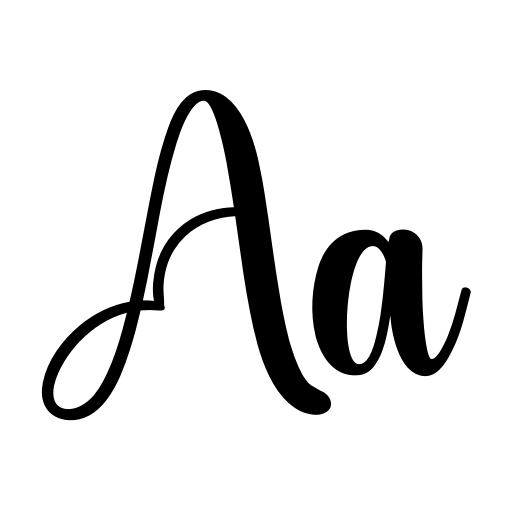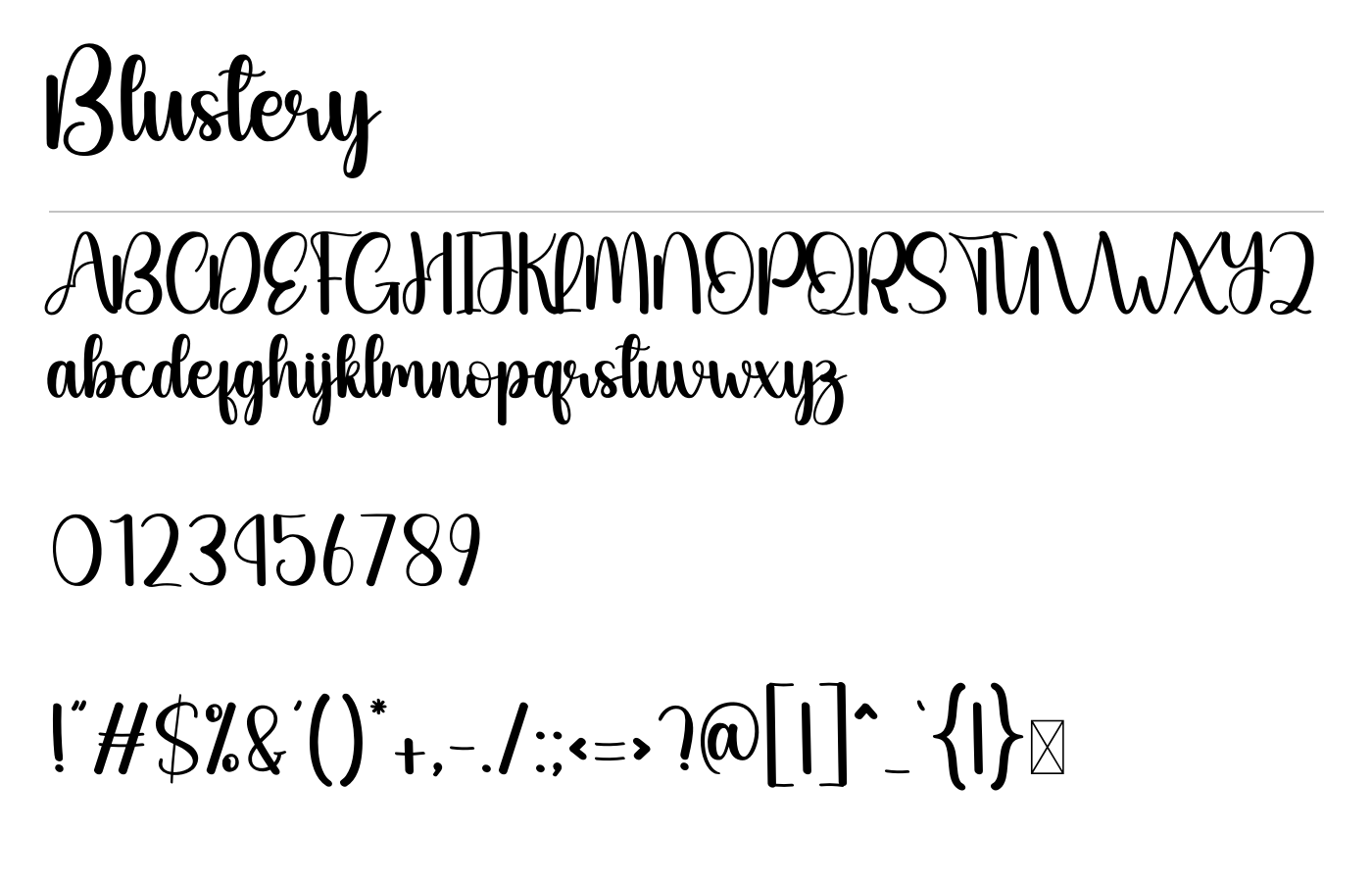
Blustery is a playful script font with a smooth, flowing style that features tall, rounded letterforms and a friendly, handwritten feel. Its moderate stroke contrast and unique quirky details in the uppercase letters make it perfect for adding a personal, cheerful touch to invitations, branding, and casual headlines. This font works beautifully in creative projects where a warm, approachable vibe is desired.
Blustery Font
About Blustery Font